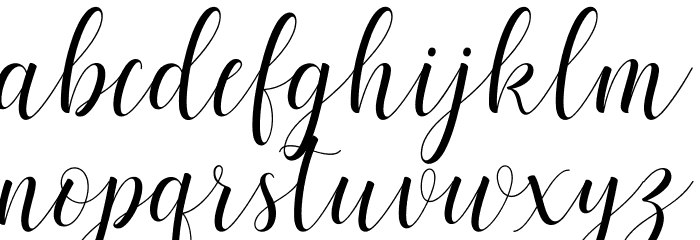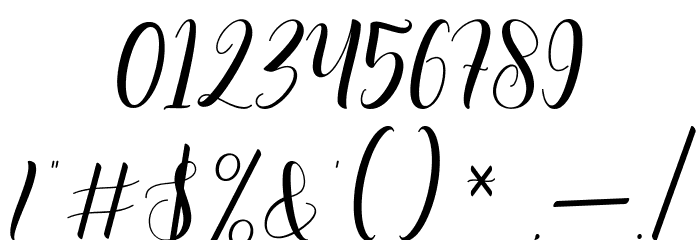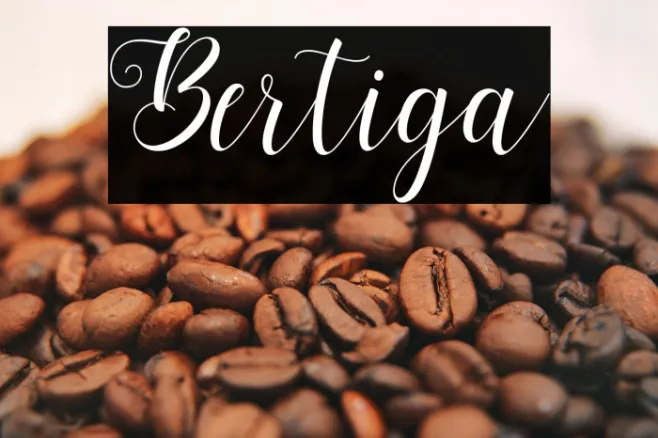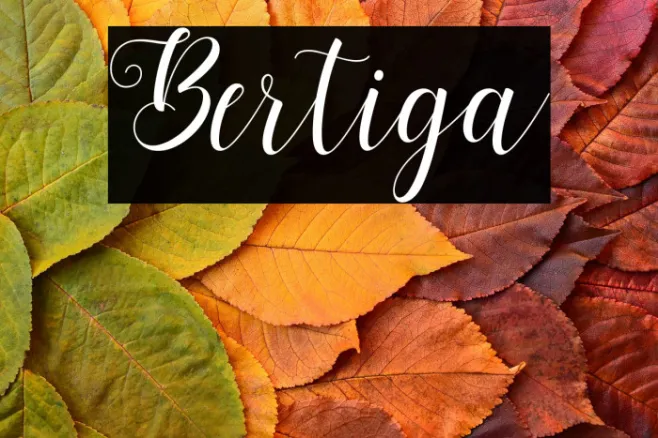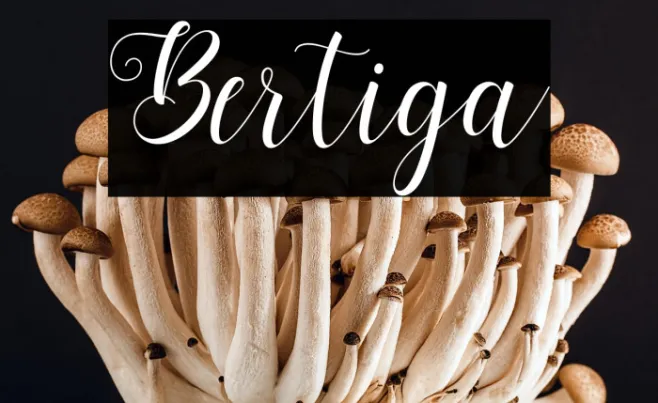
This elegant script font features beautifully flowing, interconnected letters with intricate swirls and flourishes. The uppercase letters are particularly ornate, with each character exhibiting unique loops and curves that add a sense of sophistication and grace. The lowercase letters maintain a consistent style, offering a smooth transition between characters, which enhances readability while preserving the decorative nature of the font. The numerals are equally stylish, with a slight slant that complements the overall cursive design. Special characters are crafted with the same attention to detail, ensuring a cohesive look across all glyphs. This font is perfect for projects that require a touch of elegance and class.
An elegant script font with flowing, interconnected letters and intricate swirls.
- Font: Bertiga
- Proposed Projects: Ideal for wedding invitations, elegant branding, greeting cards, and high-end product packaging.
- Overall Style: Elegant
- Use Case: Logos, Invitations, Decorative text